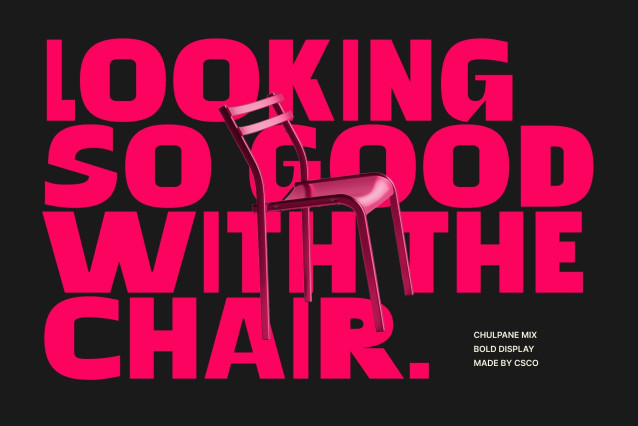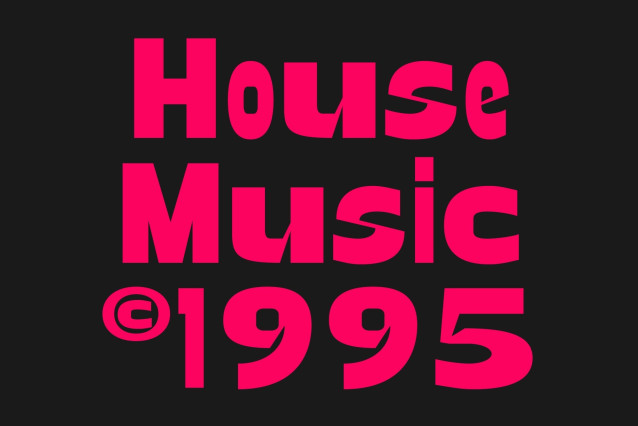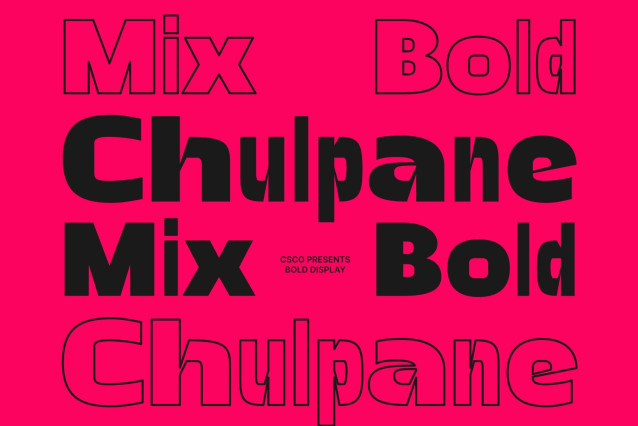
Chulpane Mix – Bold Funky Sans Serif: Playful Energy with Strong Visual Impact
Bold Sans Serif with Mixed Style Character
This is a bold sans serif font designed to combine strength, clarity, and playful creativity in one expressive typeface. Built with robust shapes and a confident structure, this font introduces a distinctive mixed-style concept that adds rhythm, contrast, and personality to every composition. It transforms bold typography into a lively visual statement that feels modern, energetic, and memorable.
A Dynamic Blend of Bold and Regular Letterforms
The unique appeal of this font comes from its creative fusion of bold and regular characters. This mixed-weight approach creates visual movement and a dynamic typographic flow that instantly captures attention. The contrast between strong strokes and balanced forms gives the font a funky and artistic personality while maintaining harmony and readability across layouts.